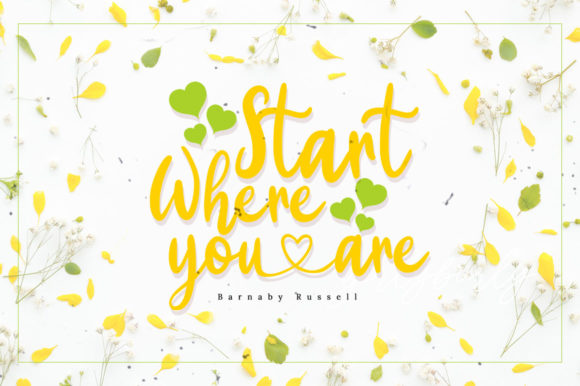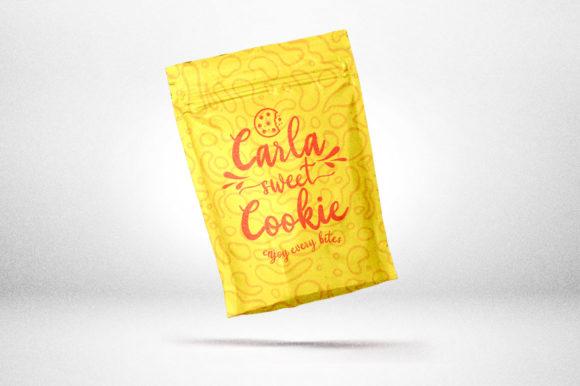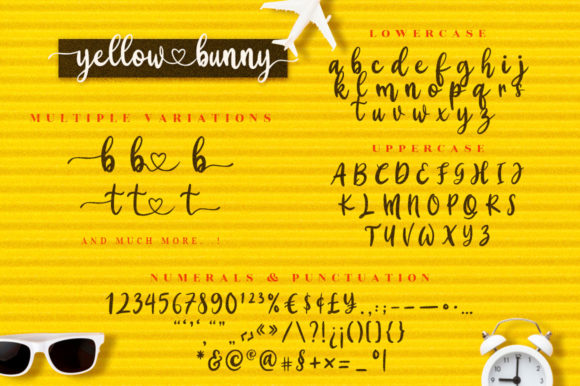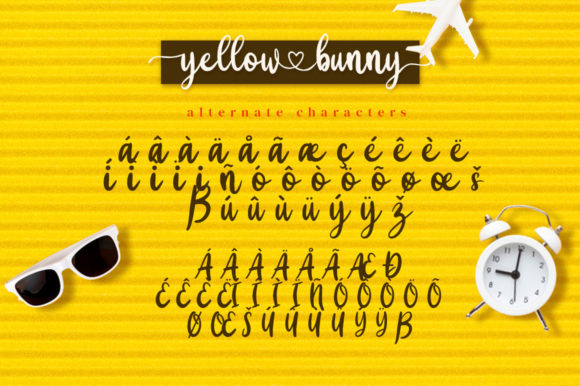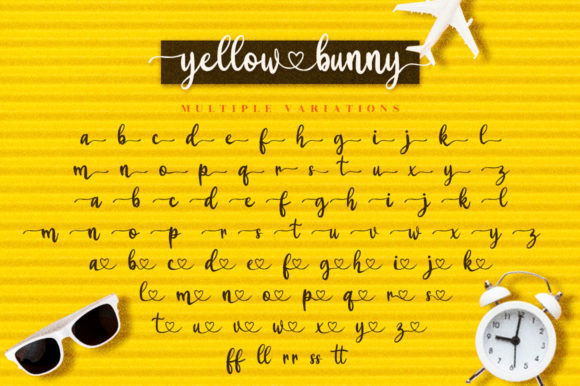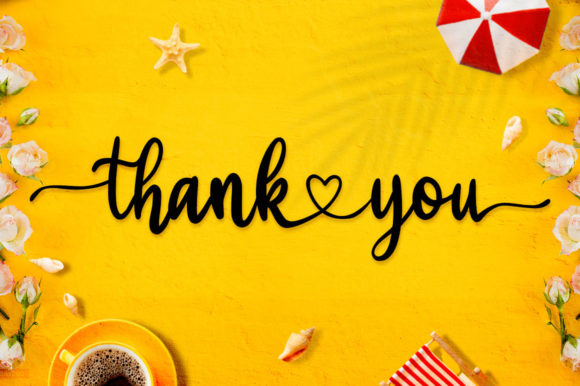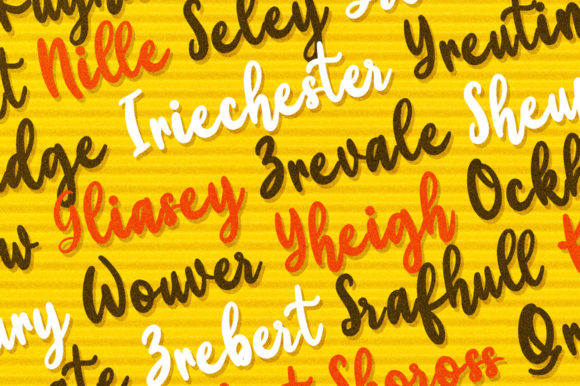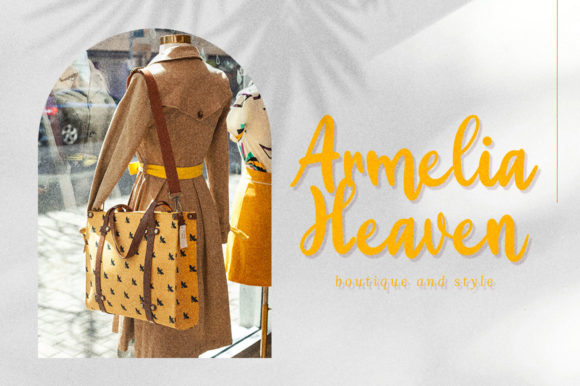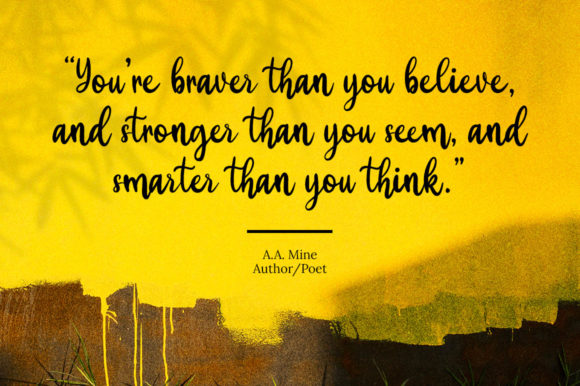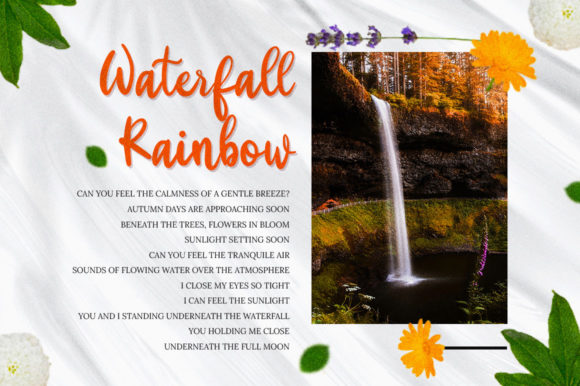
Yellow Bunny Font
About Yellow Bunny Font
Yellow Bunny is a delightful and charming calligraphy typeface that exudes a romantic and sweet aura. With its characters dancing along the baseline, this font brings a sense of movement and grace to your designs. It adds a touch of luxury to any design project you wish to create, making it truly captivating. Furthermore, Yellow Bunny is PUA encoded, enabling effortless access to its amazing range of glyphs and ligatures.
The romantic and sweet nature of Yellow Bunny infuses your designs with warmth and affection. Its calligraphic strokes exude elegance and beauty, creating a romantic ambiance. Whether you’re designing wedding invitations, love notes, branding materials, or any other project, Yellow Bunny font adds a delightful and sentimental touch that evokes emotions.
The characters dancing along the baseline in Yellow Bunny give your designs a dynamic and lively quality. They bring a sense of rhythm and fluidity, making your typography visually captivating and engaging. The romantic and sweet essence of Yellow Bunny adds a unique charm to your compositions, leaving a lasting impression.
Yellow Bunny’s PUA encoding offers effortless access to its wide range of glyphs and ligatures. This feature empowers you to explore and utilize the font’s decorative elements, enabling further customization and creativity in your designs. You can enhance your compositions with unique flourishes and combine letters in special ways, expanding the possibilities for your design projects.
In summary, Yellow Bunny is a romantic and sweet calligraphy typeface with characters that dance along the baseline, infusing your designs with a touch of luxury. Its PUA encoding allows easy access to an array of amazing glyphs and ligatures, opening up a world of creative possibilities. Embrace the beauty of Yellow Bunny and let it add a charming and captivating spark to your design projects.